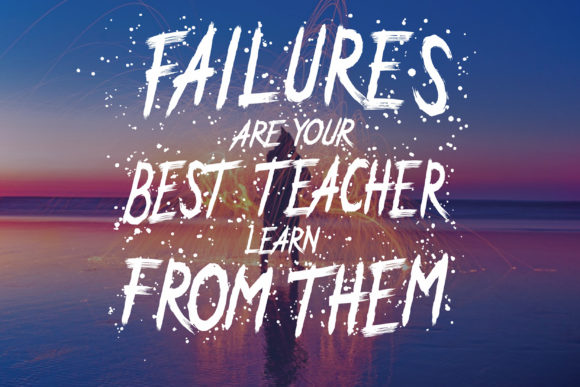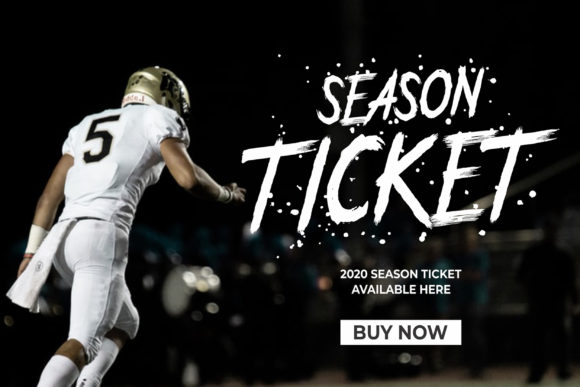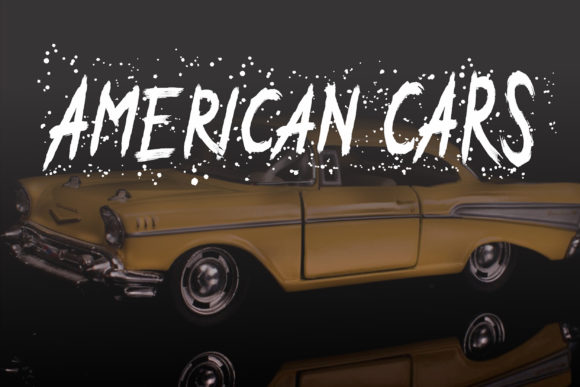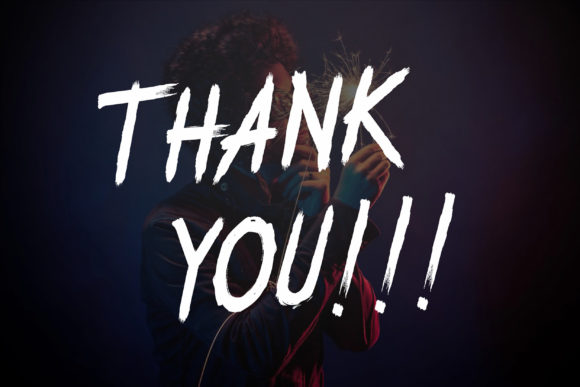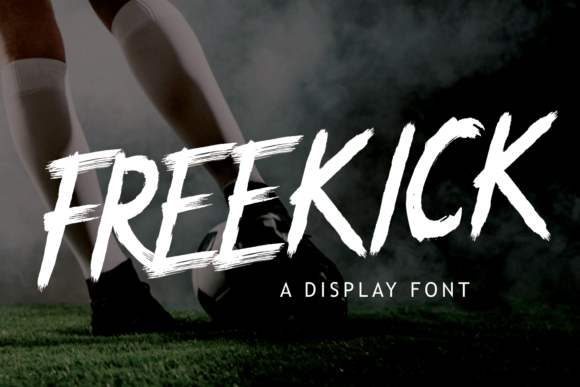
Introducing Freekick Font: The Perfect Blend of Fun and Clean Design
Are you on the hunt for a font that adds a touch of personality to your designs without compromising on readability? Look no further than Freekick Font, a casual, fun display font that’s perfect for a wide range of creative projects. In this article, we’ll dive into the world of Freekick Font, exploring its unique features, uses, and benefits for designers and crafters alike.
The Story Behind Freekick Font
Freekick Font was created using a brush pen, giving it a distinctive, hand-crafted feel that’s both clean and quirky. This unique approach to font design sets Freekick apart from more traditional fonts, making it an excellent choice for those looking to add a bit of whimsy to their work. Whether you’re designing a logo, creating social media graphics, or working on a crafty DIY project, Freekick Font is sure to bring a smile to your audience’s faces.
Key Features of Freekick Font
- Clean and Quirky Design: Freekick Font boasts a clean, easy-to-read design with a dash of quirkiness, making it perfect for a wide range of applications.
- Casual and Fun: This font is designed to add a touch of personality to your designs, making it ideal for social media, branding, and crafty DIY projects.
- Brush Pen Created: The unique, hand-crafted feel of Freekick Font sets it apart from more traditional fonts, giving your designs a distinctive edge.
- Highly Versatile: Freekick Font can be used for a wide range of projects, from logos and branding to social media graphics and crafty DIY projects.
Uses for Freekick Font
So, what can you use Freekick Font for? The possibilities are endless! Here are a few ideas to get you started:
- Logos and Branding: Add a touch of personality to your logo and branding with Freekick Font, creating a memorable and engaging visual identity for your business.
- Social Media Graphics: Use Freekick Font to create eye-catching social media graphics that stand out from the crowd and help you connect with your audience.
- Crafty DIY Projects: Freekick Font is perfect for crafty DIY projects, such as handmade cards, gift tags, and other paper crafts.
- Invitations and Event Materials: Add a touch of whimsy to your invitations, flyers, and other event materials with Freekick Font.
Tips for Using Freekick Font
To get the most out of Freekick Font, here are a few tips to keep in mind:
- Use it for Headings and Titles: Freekick Font is perfect for headings and titles, adding a touch of personality to your designs.
- Pair it with Other Fonts: Freekick Font pairs well with a wide range of other fonts, so don’t be afraid to get creative and try out different combinations.
In conclusion, Freekick Font is a versatile, fun, and clean display font that’s perfect for designers and crafters alike. With its unique, hand-crafted feel and highly versatile design, Freekick Font is sure to become a go-to font in your collection. So why wait? Download Freekick Font today and start adding a touch of personality to your designs!
- What is Freekick Font?: Freekick Font is a casual, fun display font created using a brush pen.
- What can I use Freekick Font for?: Freekick Font can be used for a wide range of projects, including logos, branding, social media graphics, and crafty DIY projects.
- Is Freekick Font easy to read?: Yes, Freekick Font is designed to be clean and easy to read, making it perfect for a wide range of applications.